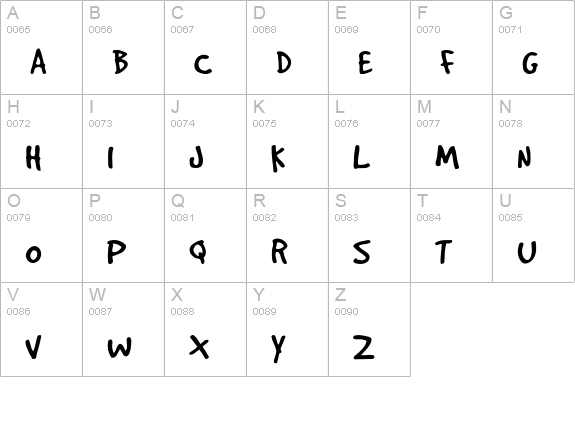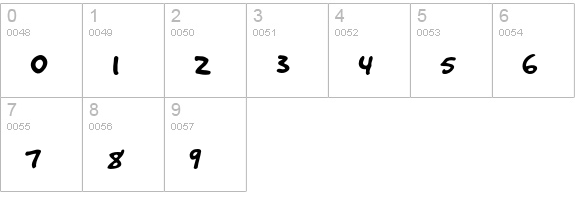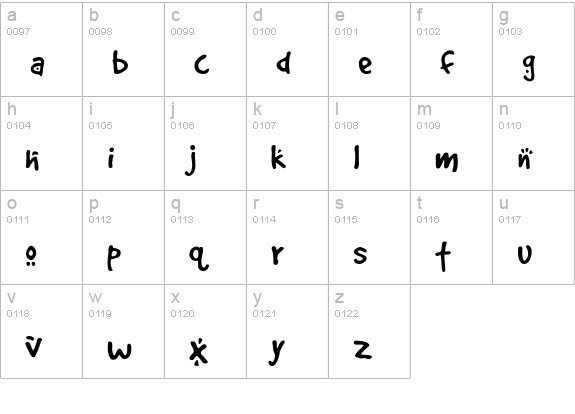
GoodDogCool Font Details
GoodDogCool font is a charming and playful typeface that is perfect for adding a touch of whimsy to your designs. With its friendly and approachable style, this font is sure to bring a smile to your audience. The GoodDogCool font features unique hand-drawn letterforms with a cool twist, making it stand out from the crowd. Whether you're designing posters, invitations, or social media graphics, GoodDogCool font is a versatile choice that will capture attention. The best part is that GoodDogCool font is completely free to download at FontsMarket.com. This means you can easily access this delightful font and use it in your projects without any cost. Don't miss out on the opportunity to add a fun and quirky touch to your designs with GoodDogCool font – download it today and let your creativity shine!